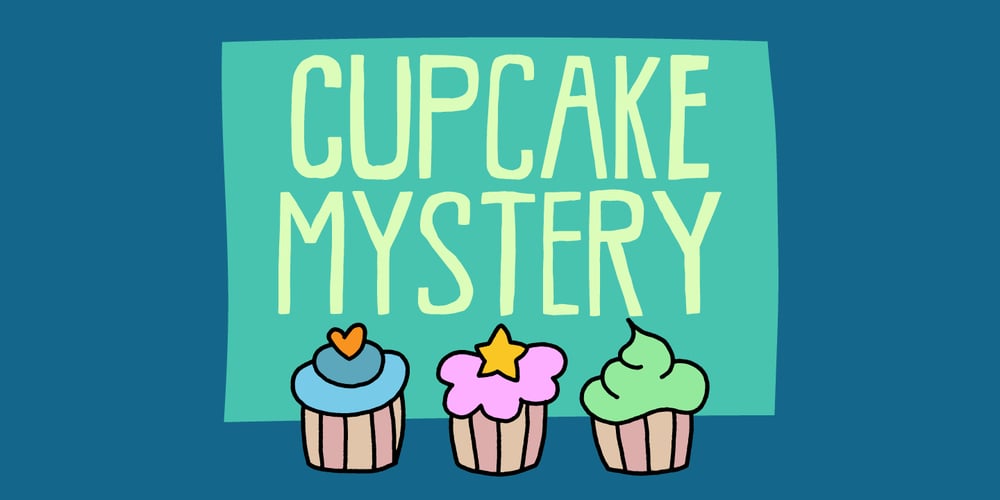
Cupcake Mystery
Cupcake Mystery font
Cupcake Mystery Font Family was designed by Jakob Fischer and published by Bogstav. Cupcake Mystery contains 2 styles and family package options. Who took the last cupcake? It’s a mystery!This lovely cookie Is made out of crunchy handmade lines, and comes with 7 different versions of each letter – these automatically cycles as you type. Pretty lovely, if you ask me!On top of all this, Cupcake Mystery has multilingual support! Enjoy!